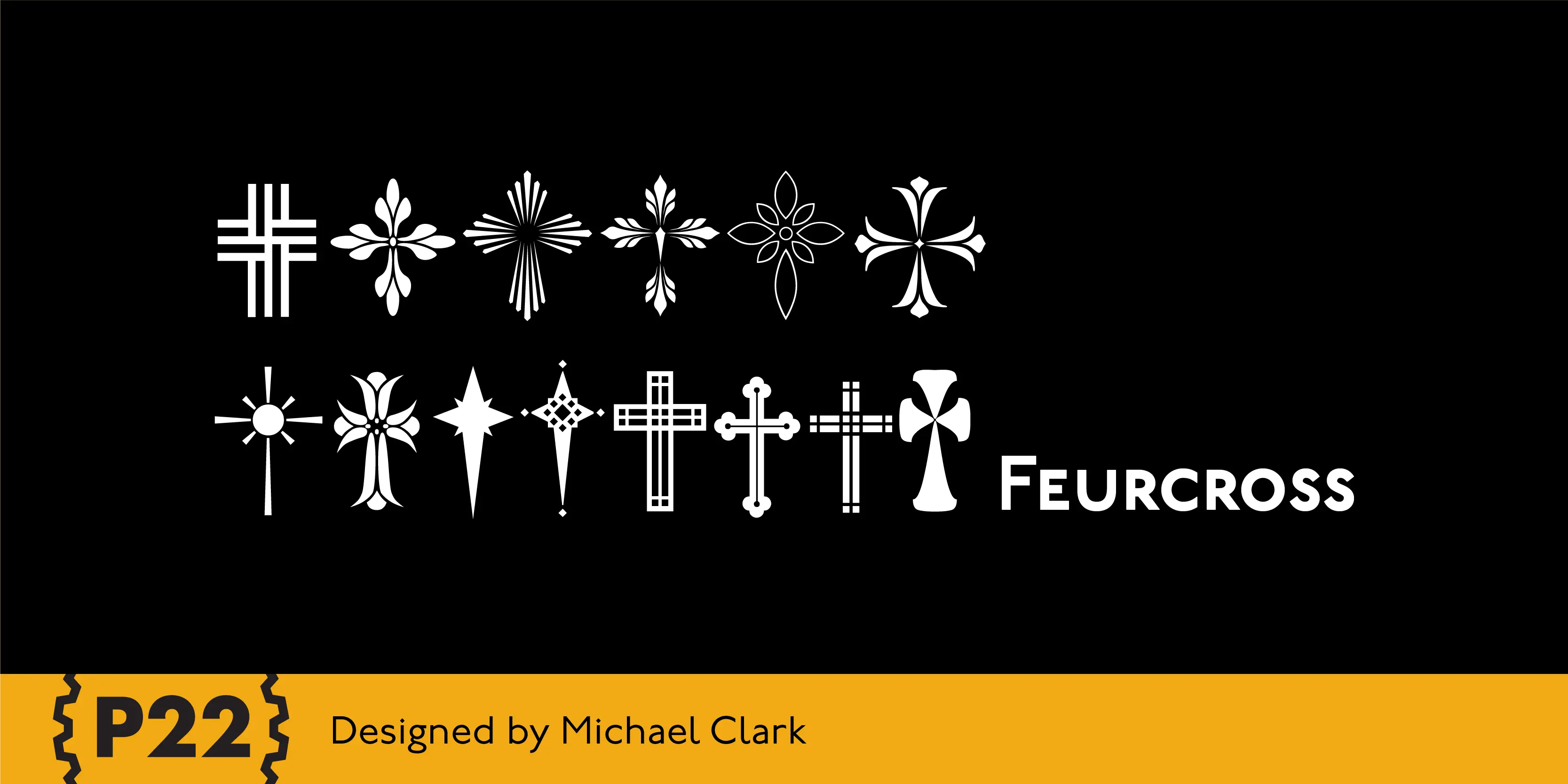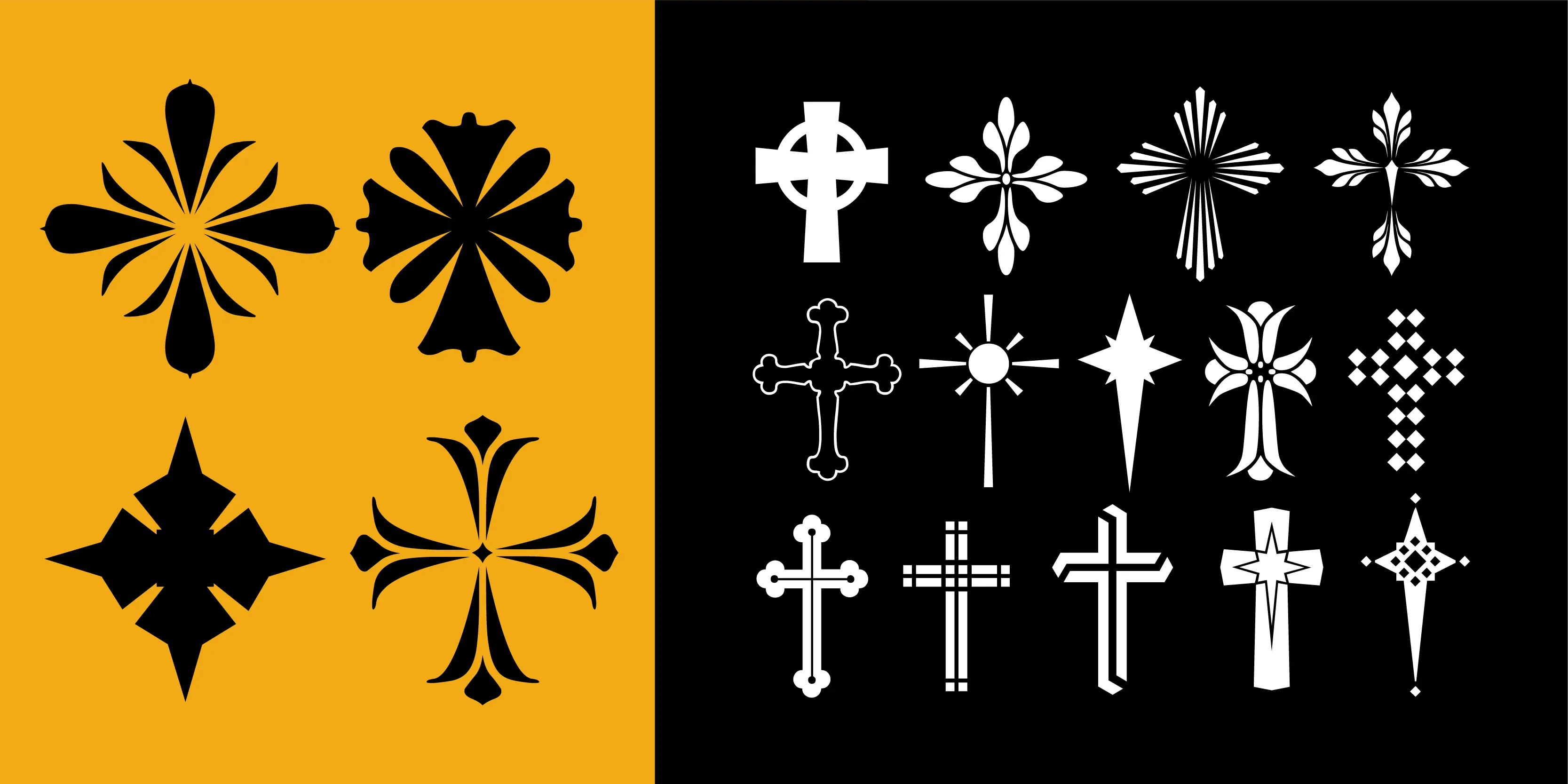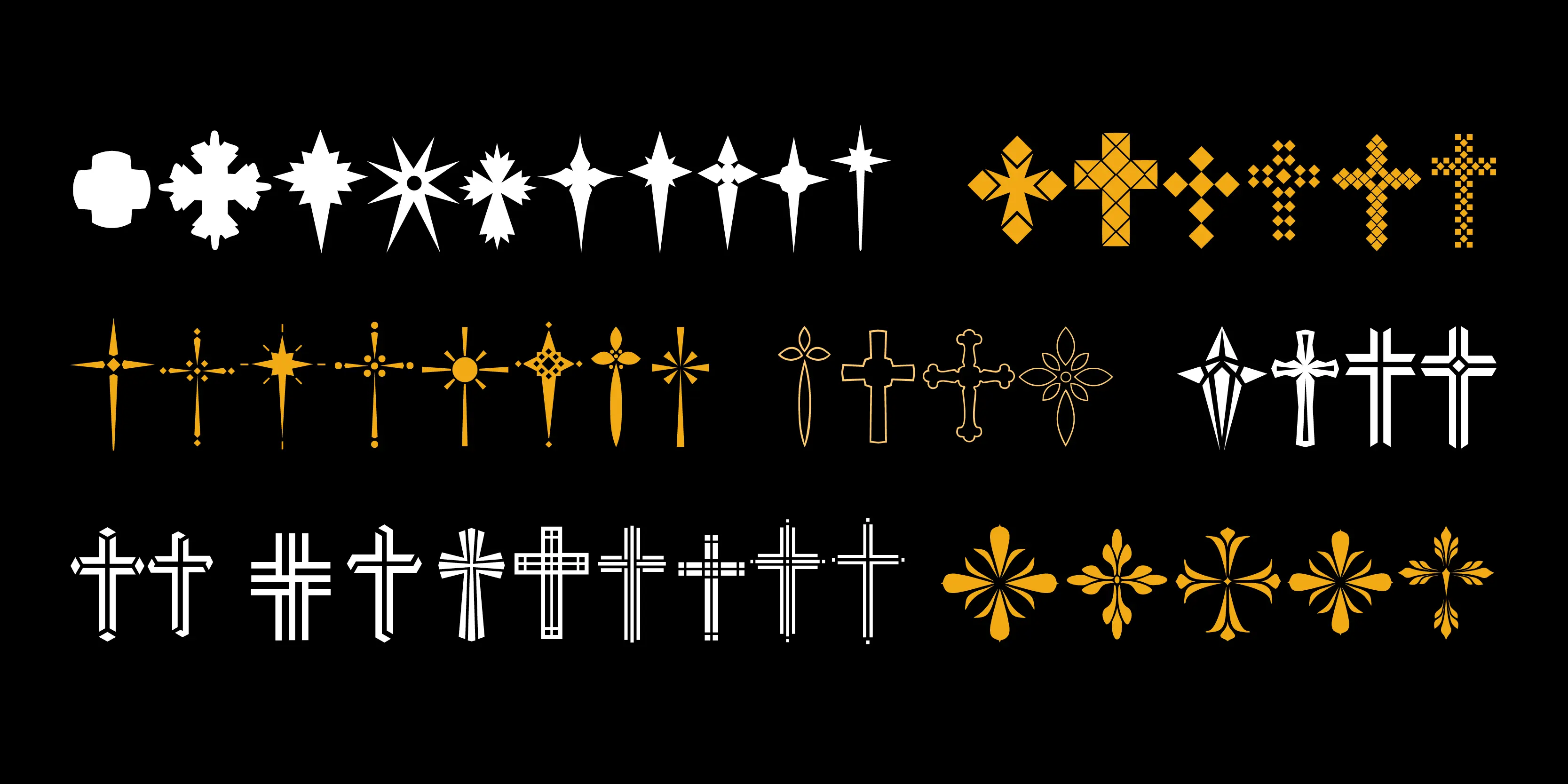
Fleurcross Font
Fleurcross
FleurCross is a set of 76 stylized crosses designed by calligrapher Michael Clark. This diverse range of cruciform ornaments features many variations on the theme of the cross.